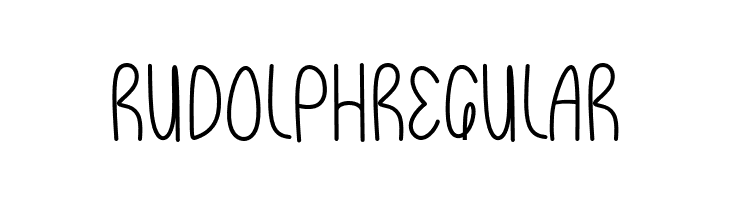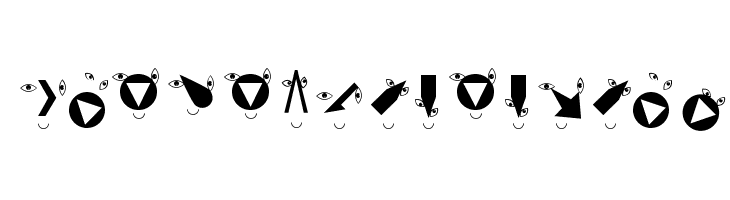
A playful, hand-drawn font with tall, narrow letters and a whimsical style.
A bold, expressive handwritten font with brush-like strokes and dynamic forms.
A playful, decorative font with abstract, face-like characters.
A bold, geometric font with a modern and robust appearance.
A modern, italicized font with bold strokes and a dynamic appearance.
A bold, geometric font with a modern and futuristic style.
A bold, geometric outline font with uniform line thickness and modern appeal.
A bold, distressed font with a rugged, vintage texture.
A bold, stencil-style font with an industrial and rugged appearance.